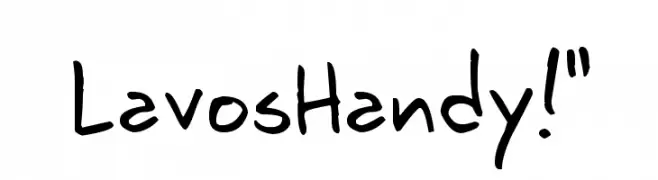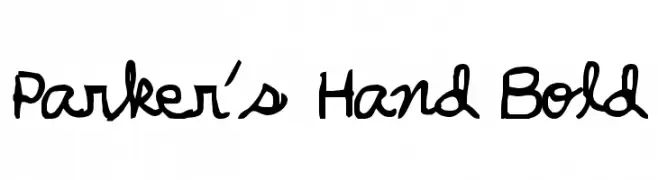
( Fonts by Diego Navarro )
A playful, handwritten font with a casual and friendly appearance.
( Fonts by fontsandfashion )
A playful, handwritten font with a casual and lively style.
( Fonts by Jen Jones )
A playful, handwritten font with rounded, informal letterforms.
( fontever.com )
A playful, casual handwritten font with uneven strokes and a whimsical style.
( Fonts by Ray of Light Design )
A playful, handwritten font with a casual and whimsical style.
A casual, handwritten-style font with a natural and organic feel.
( Fonts by Southype )
A decorative font made of expressive hand-drawn emoticon faces in circles.
( Fonts by Saridezra )
A playful, handwritten font with smooth, rounded edges and a casual style.
( Fonts by Mackenzie Rudd )
A casual, handwritten-style font with consistent strokes and a friendly appearance.
( Fonts by C.J. Potter )
A playful, bold handwritten font with a whimsical and magical flair.
( Fonts by Laura Angélica López Ramírez )
A playful, casual handwritten font with thin, whimsical strokes.
( Fonts by Bogdan Casota )
( Fonts by Daniel Agostino )
A casual, playful handwritten font with smooth, rounded strokes.
( Fonts by JOEBOB graphics )
A playful, handwritten font with smooth curves and dynamic letterforms.
( Fonts by DrawPerfect )
A playful, handwritten font with smooth, rounded edges and a casual style.
( Fonts by Kristy Hatswell )
A playful, hand-drawn outlined font with a whimsical and approachable style.
( Fonts by Kristy Hatswell )
A playful, casual handwritten font with smooth, rounded edges and a friendly appearance.
( Fonts by Sofia Lesage )
A playful, bold handwritten font with a casual and friendly style.
( Fonts by Billy England )
A playful, casual handwritten font with an organic flow and friendly appearance.
( Fonts by WrW )
A casual, handwritten-style font with irregular strokes and a personal touch.
( fredcre.free.fr )
A playful, handwritten font with a casual and informal style.
( Fonts by Des Gomez )
A playful, handwritten font with whimsical embellishments and a casual style.